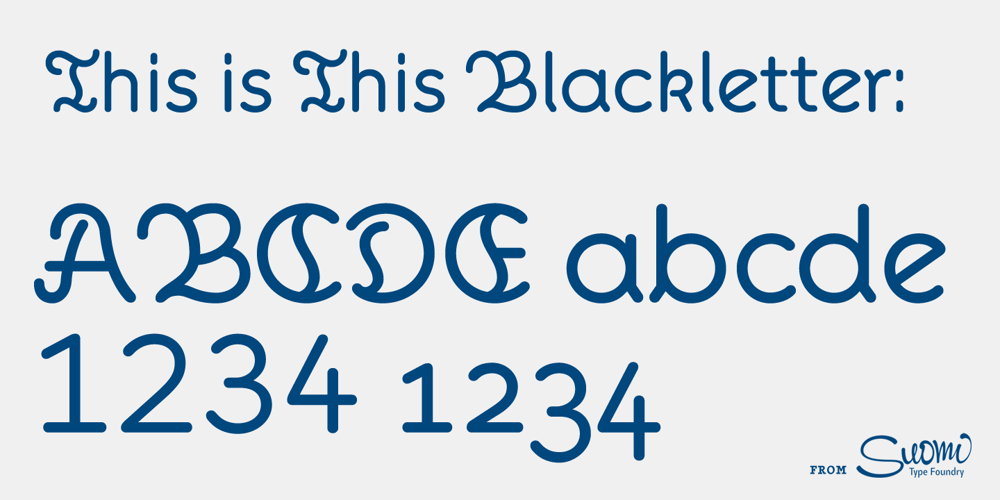
This Font Family was designed by Tomi Haaparanta and published by Suomi. This contains 4 styles and family package options. An all new rounded type family with Sans, Serif, Geometric and Blackletter!